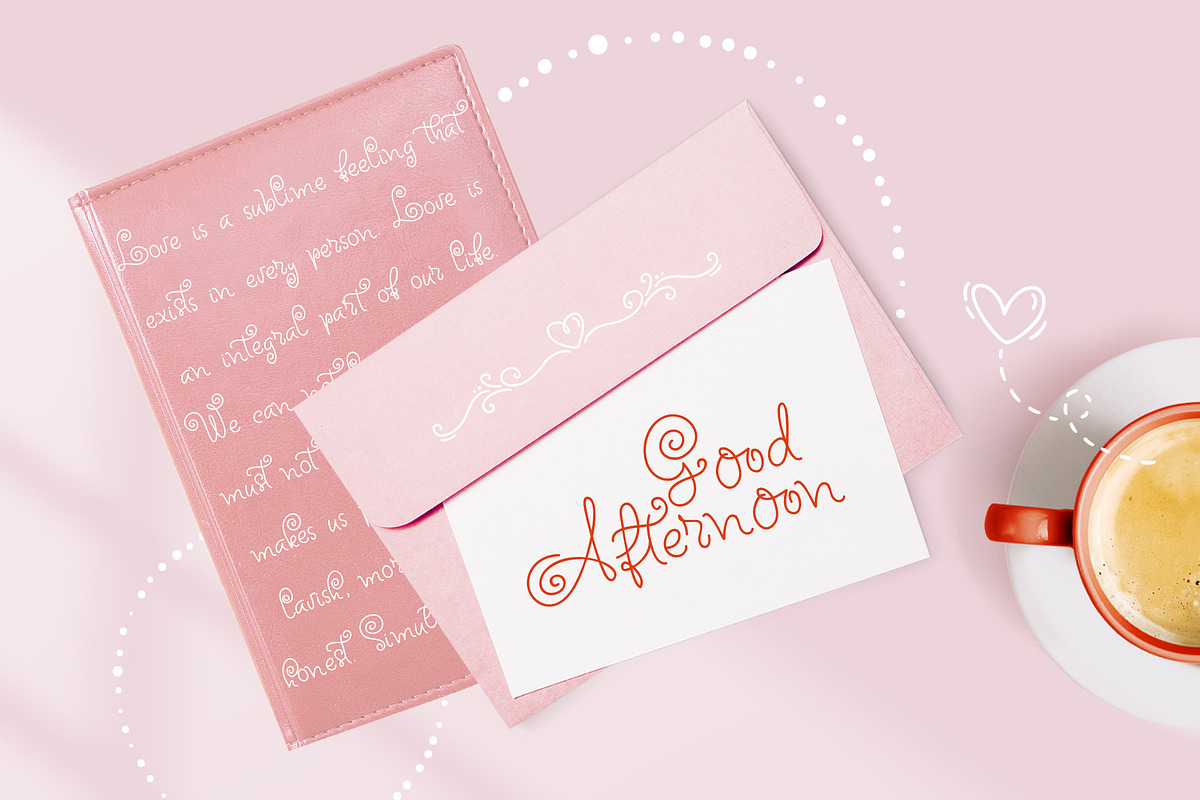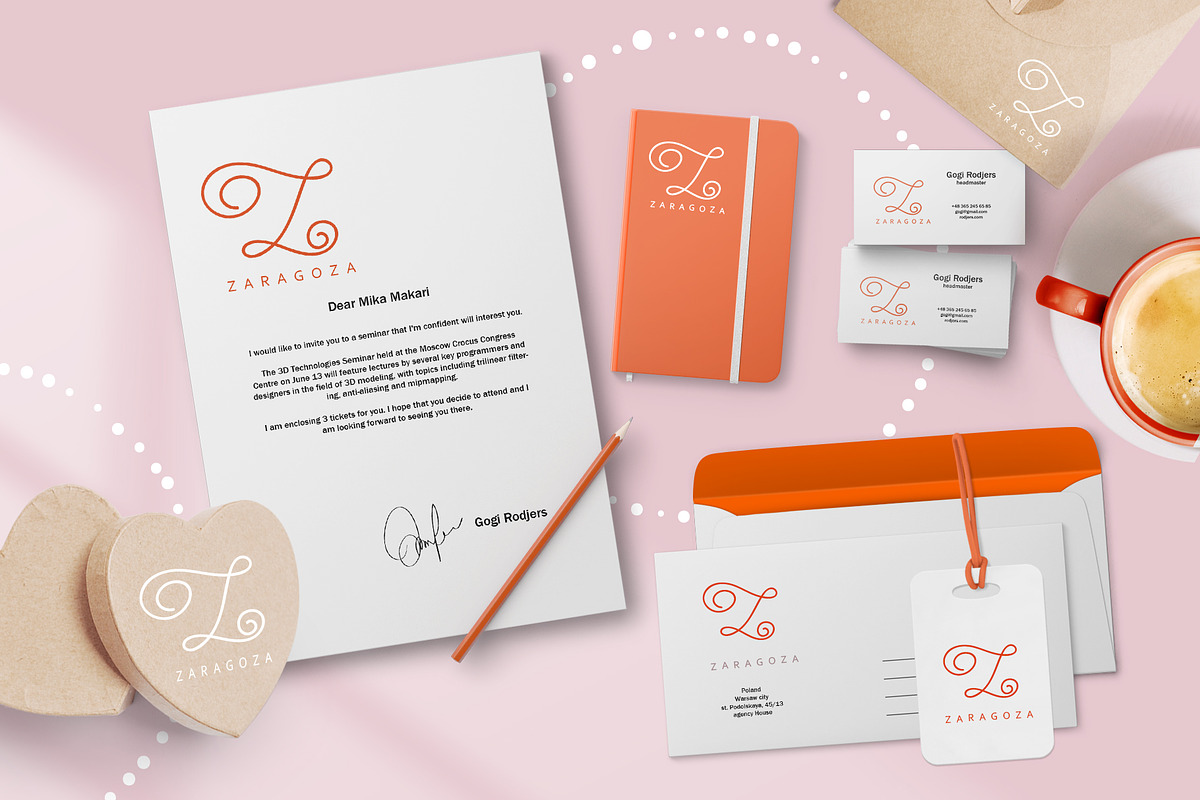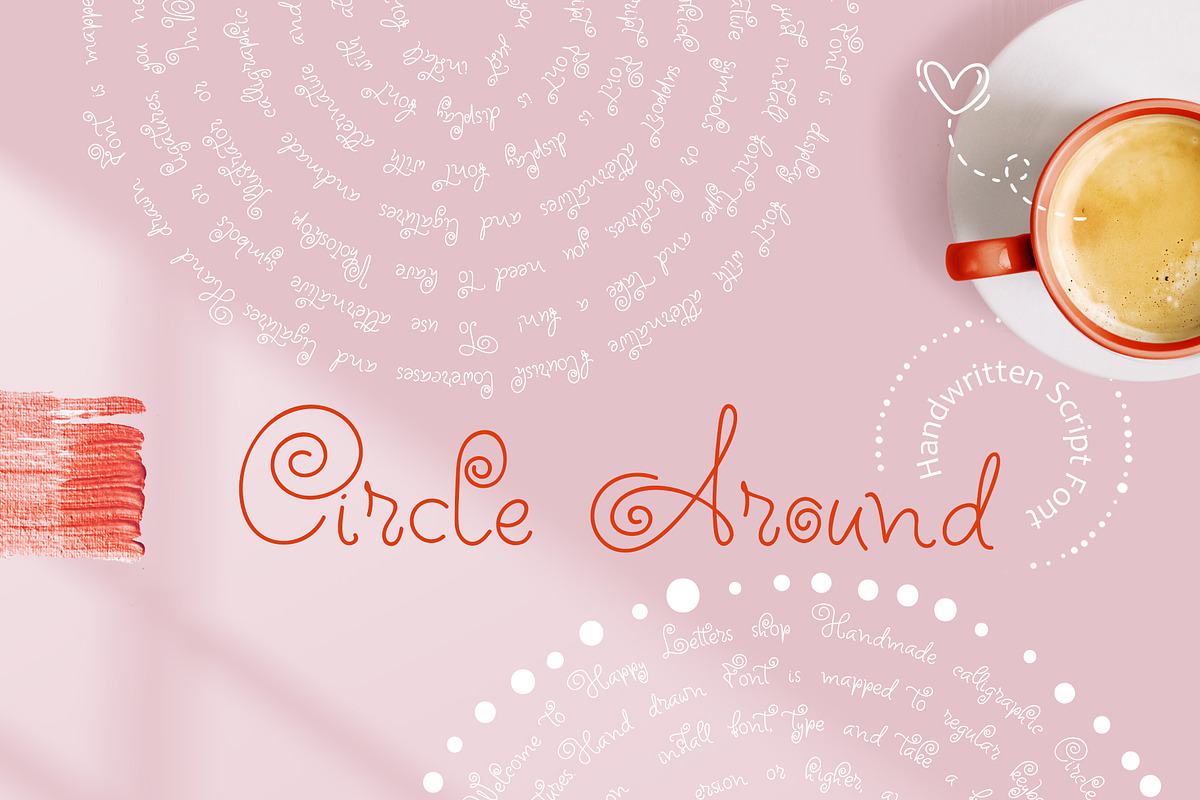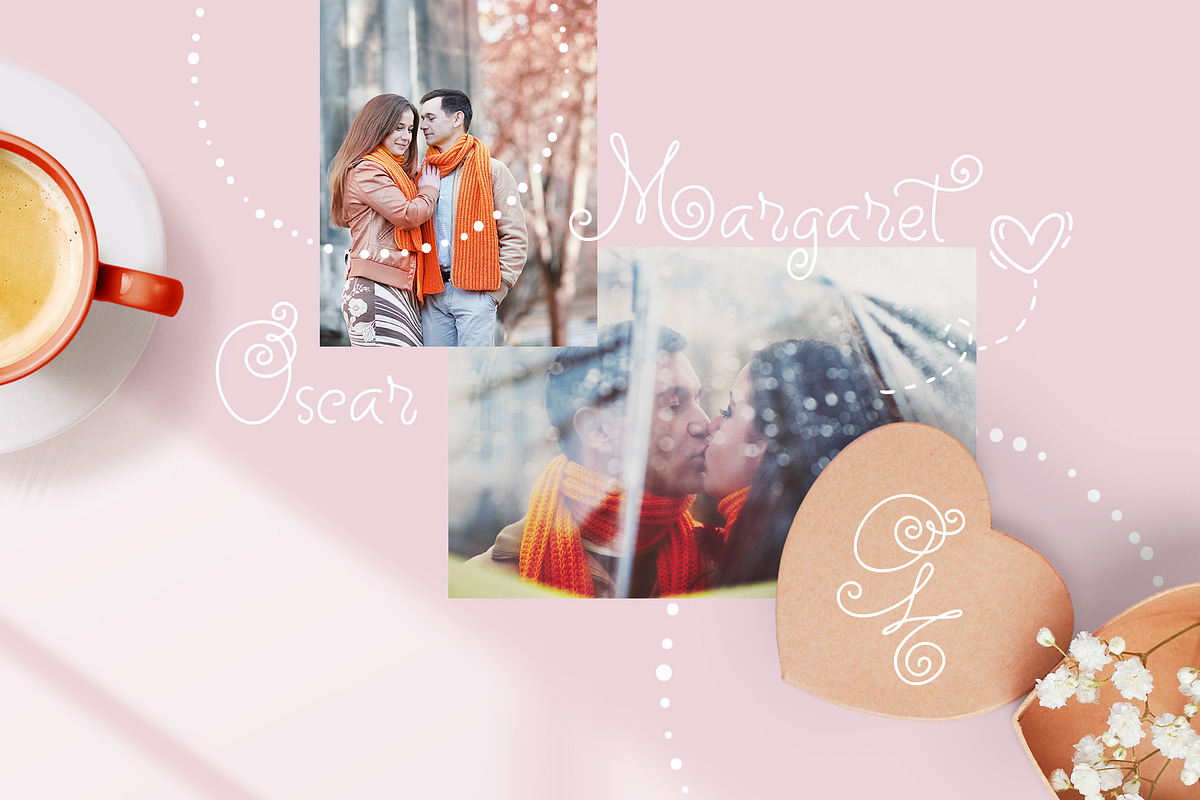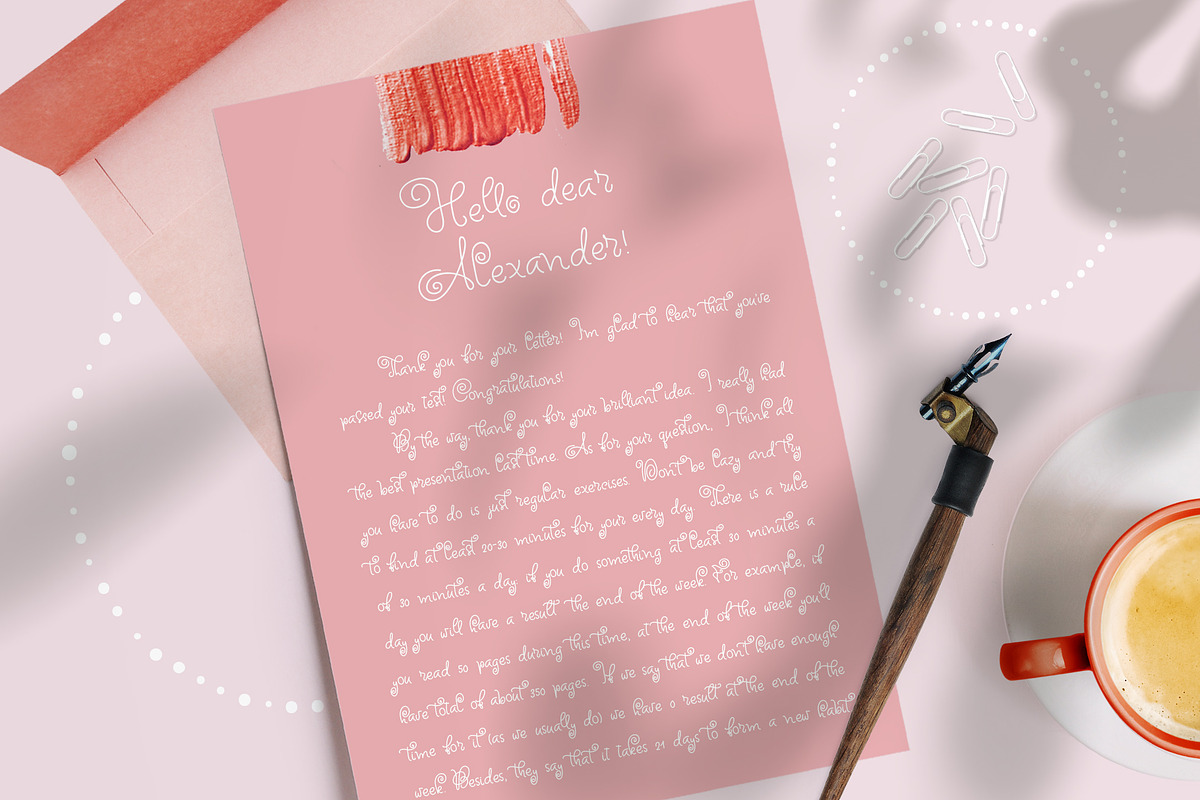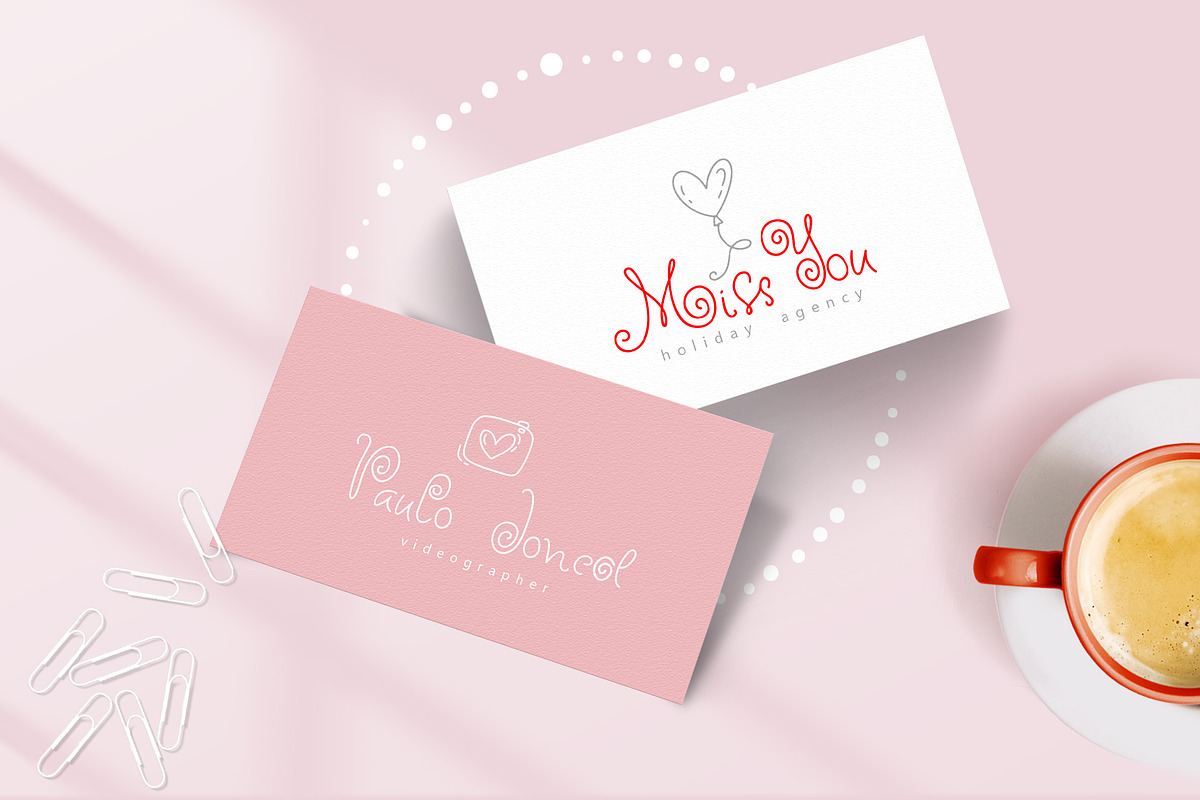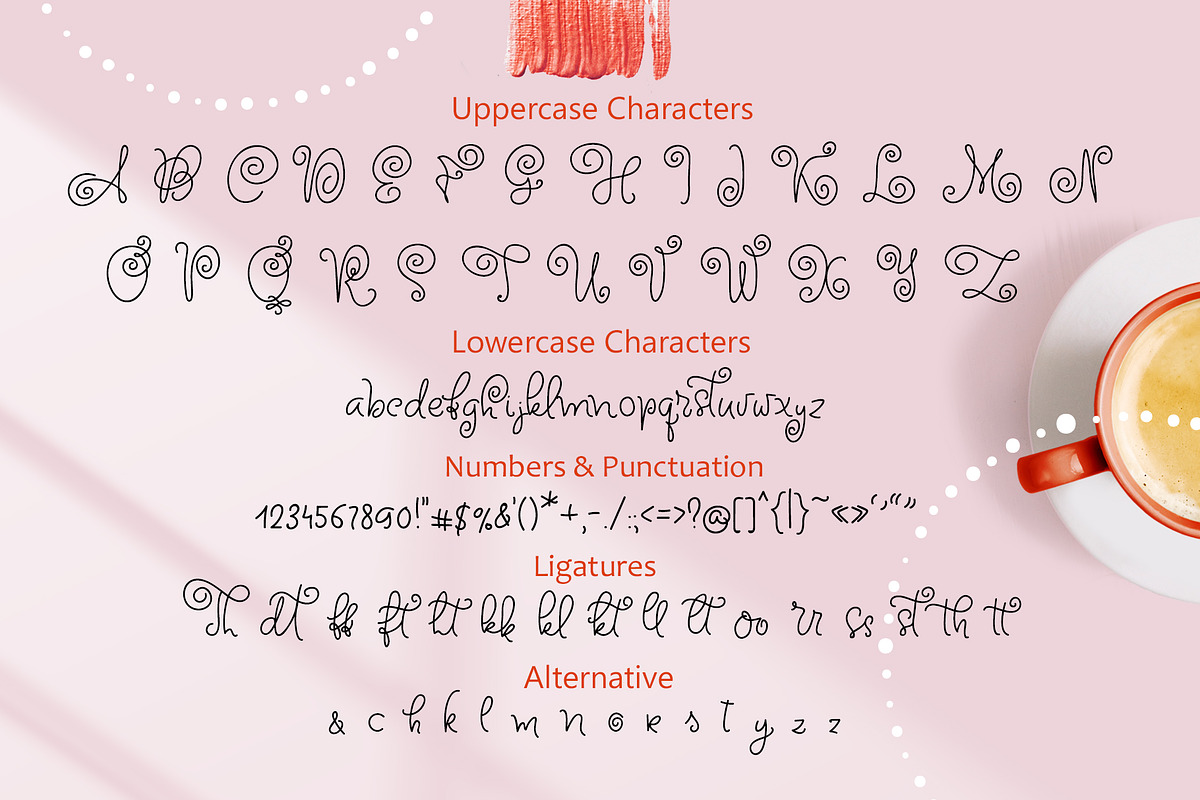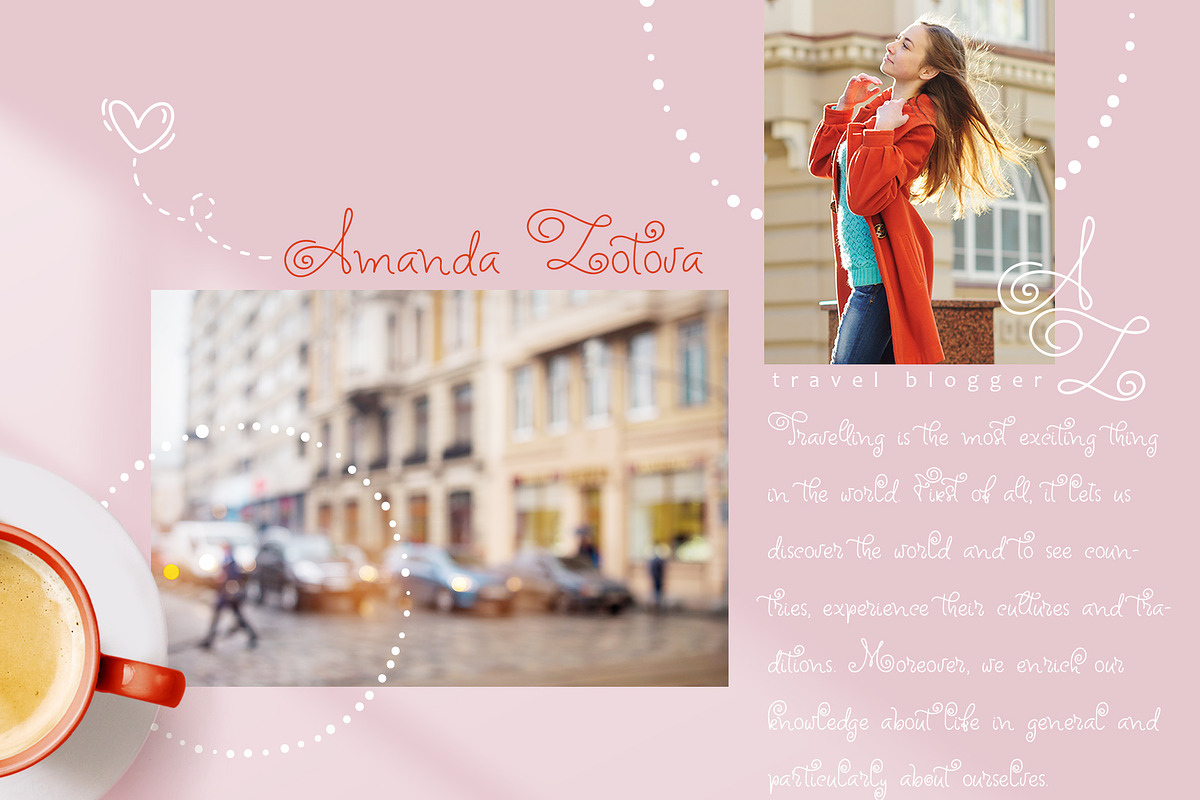
Circle Around handwritten Kids Font
Circle Around handwritten Kids Font includes unique swirly upercase and lowercase characters, number and punctuations that give funny and cute atmosphere for holiday greeting cards, invitations, books, magazines etc.
This font have alternatives in characters - & c h k l m n o r s t y z.
And ligatures - Th dt ff ft ht kk kl kt ll lt oo rr ss st th tt.
PERFECT FOR Decorate your children albums, scrapbooks, wedding and holiday greeting cards (Christmas, Birthday, Valentine's Day other holidays), logos, gift shops, tag, social media, internet shops presentation.